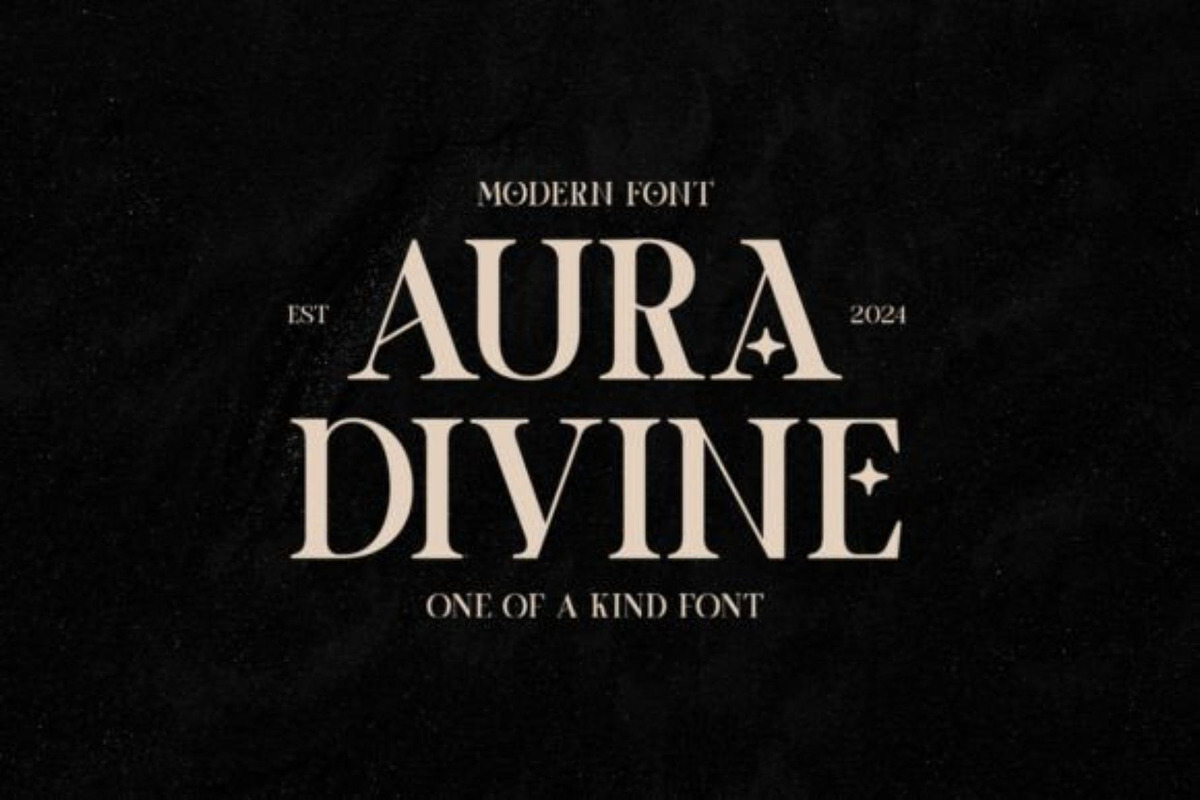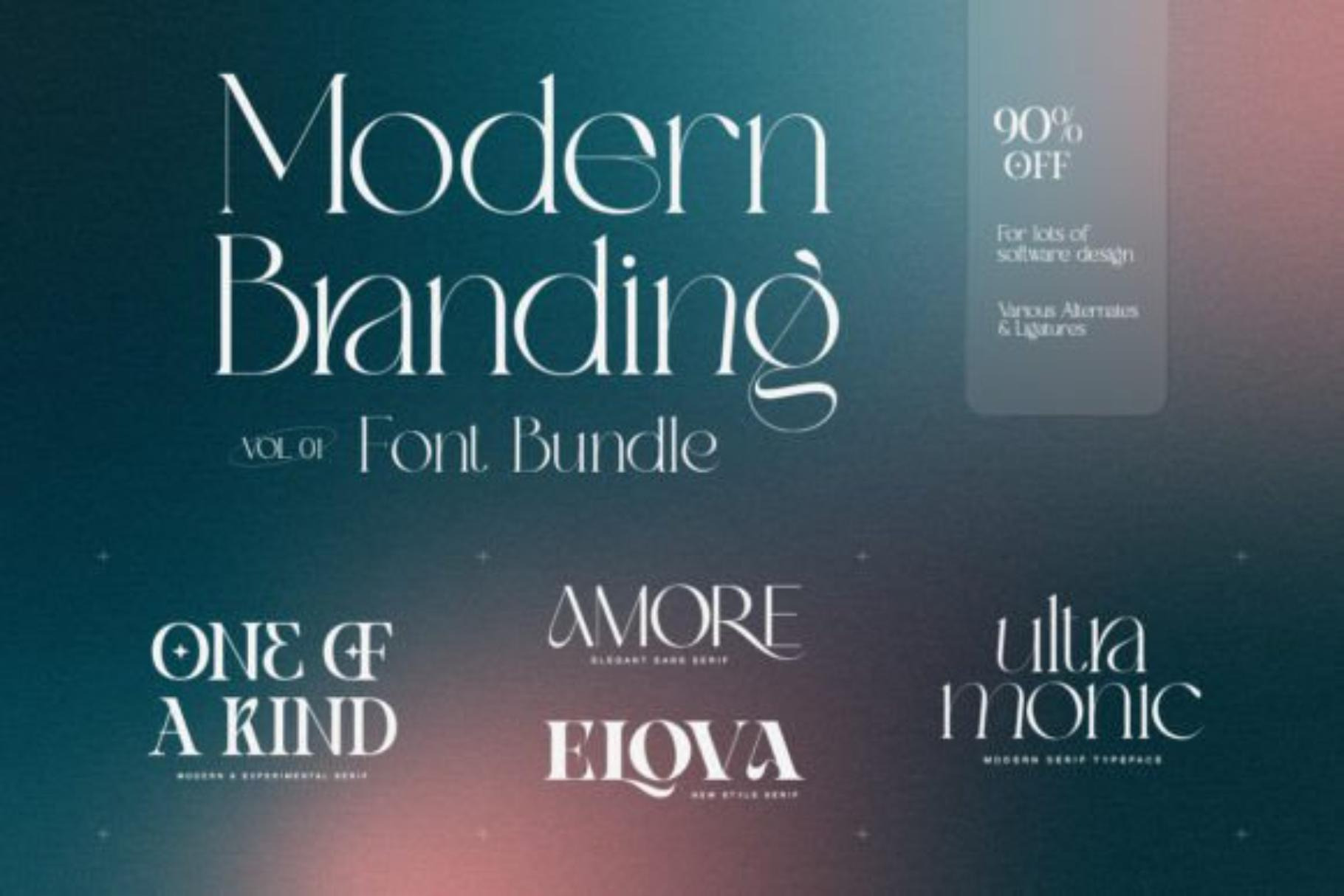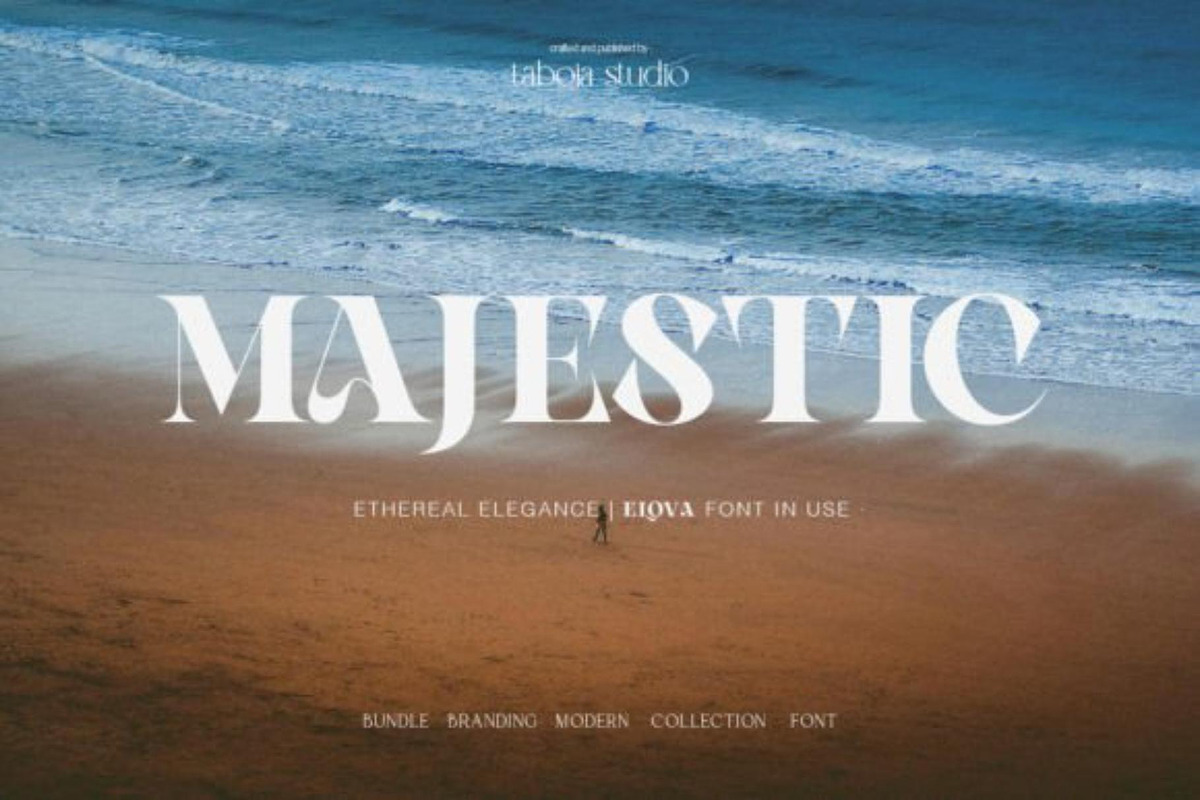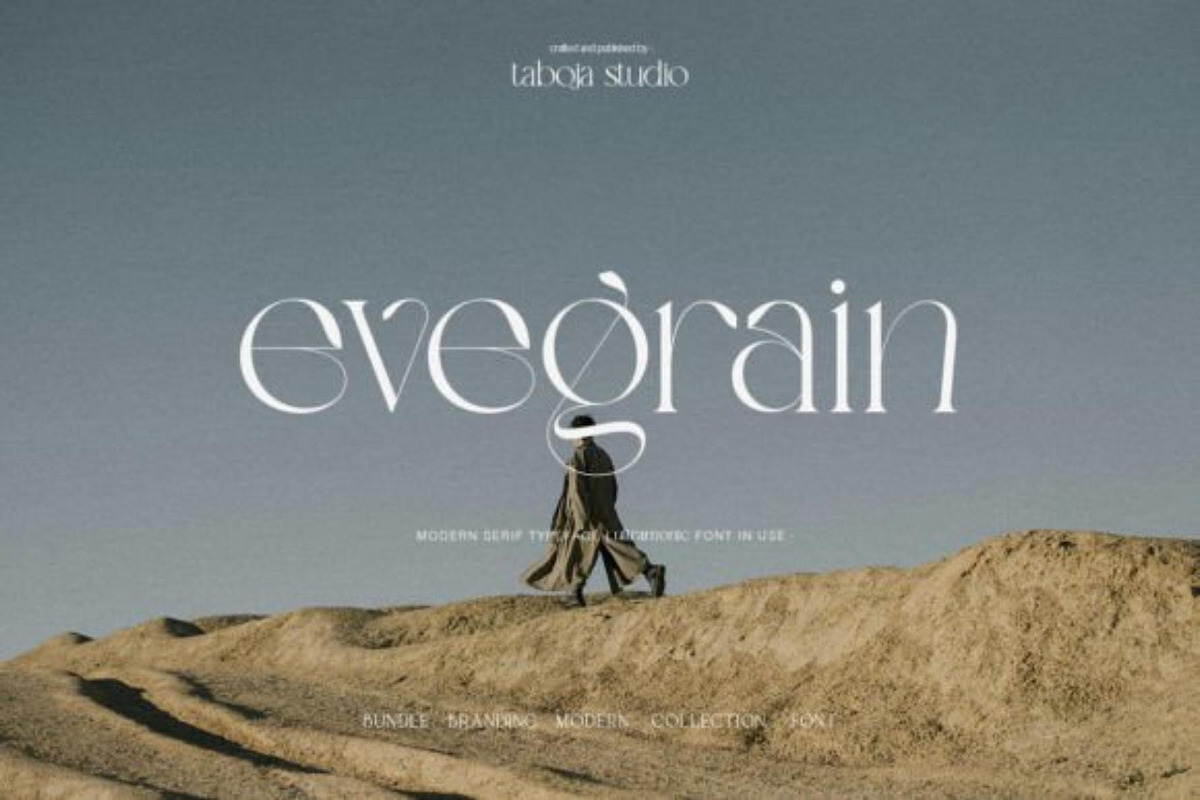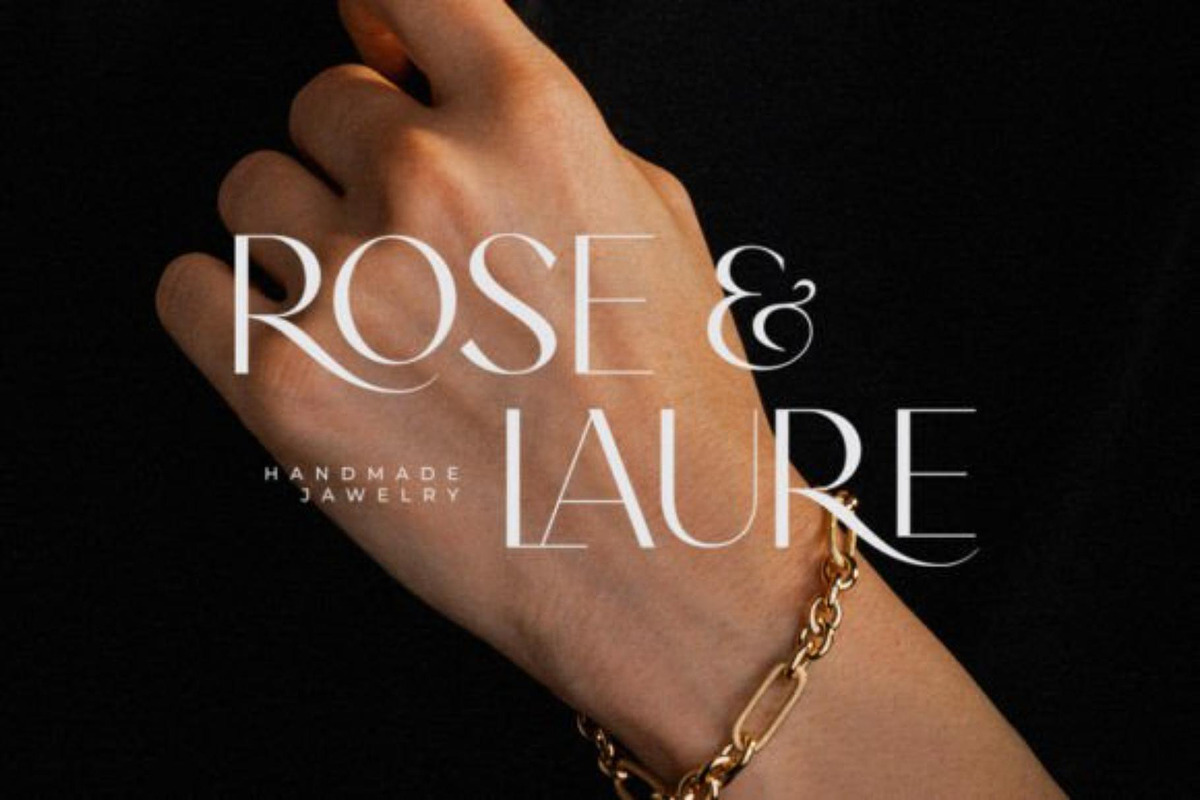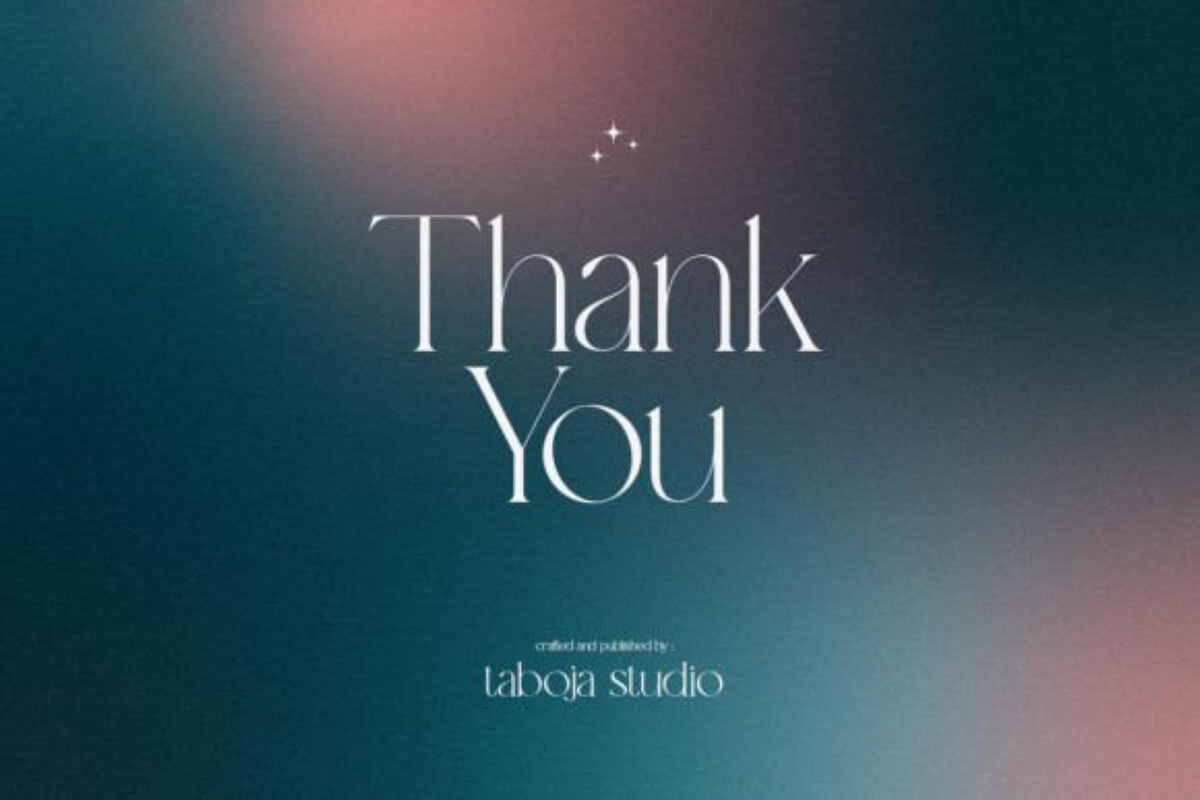
Modern Branding Bundle Premium Font
Modern Branding Bundle is a professional font collection designed for modern branding, logo design, and business identity projects.
This premium bundle combines elegant typography styles that help designers create sophisticated logos, social media graphics, magazines, packaging, and marketing materials.
• Logo Design
• Brand Identity
• Business Branding
• Social Media Graphics
• Fashion Branding
• Product Packaging
• Magazine Layouts
• Website Design
• Marketing Materials
• Corporate Projects
Modern Branding Bundle delivers professional typography solutions for designers, entrepreneurs, agencies, and businesses looking to create a strong and memorable visual identity.